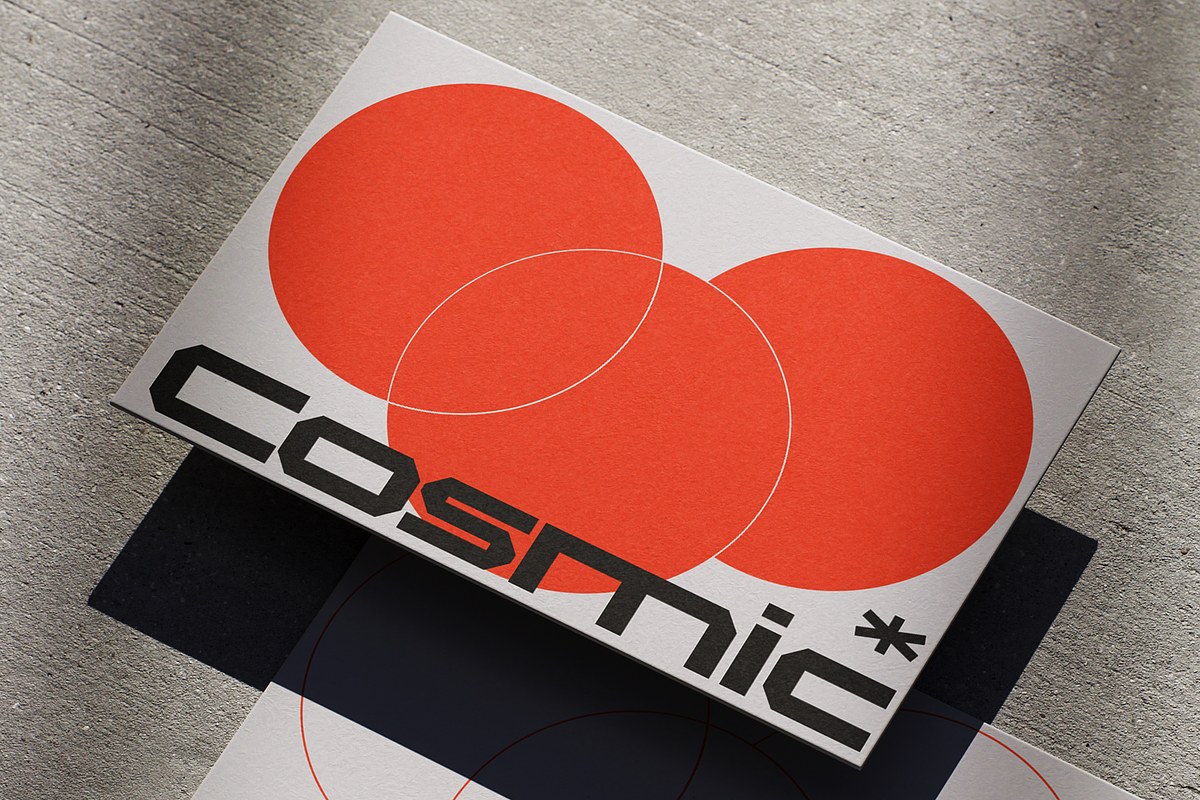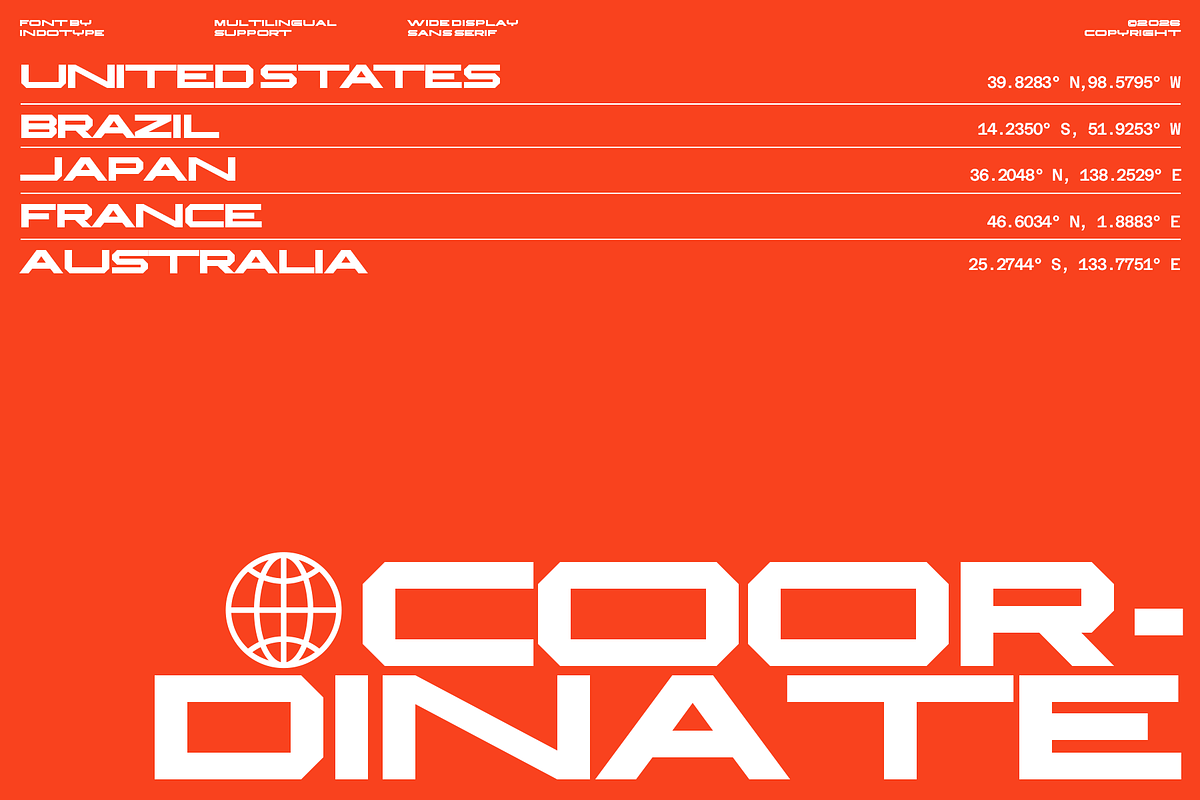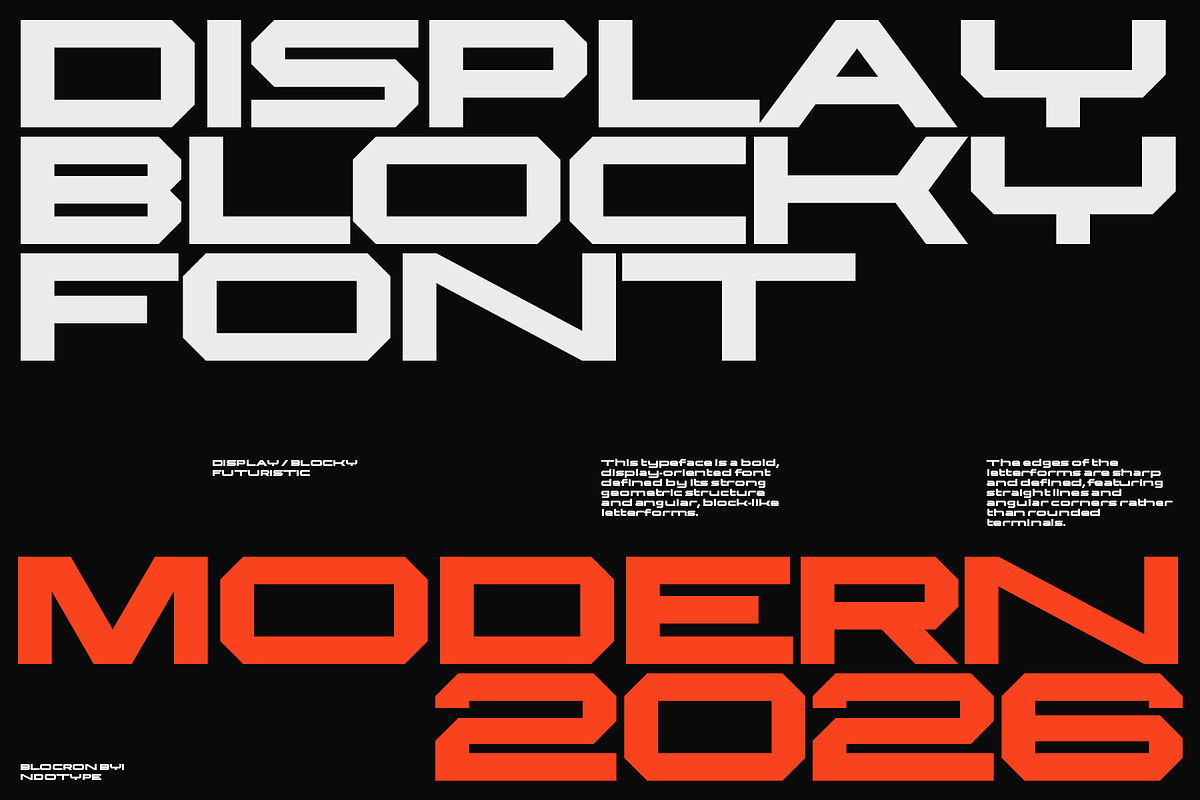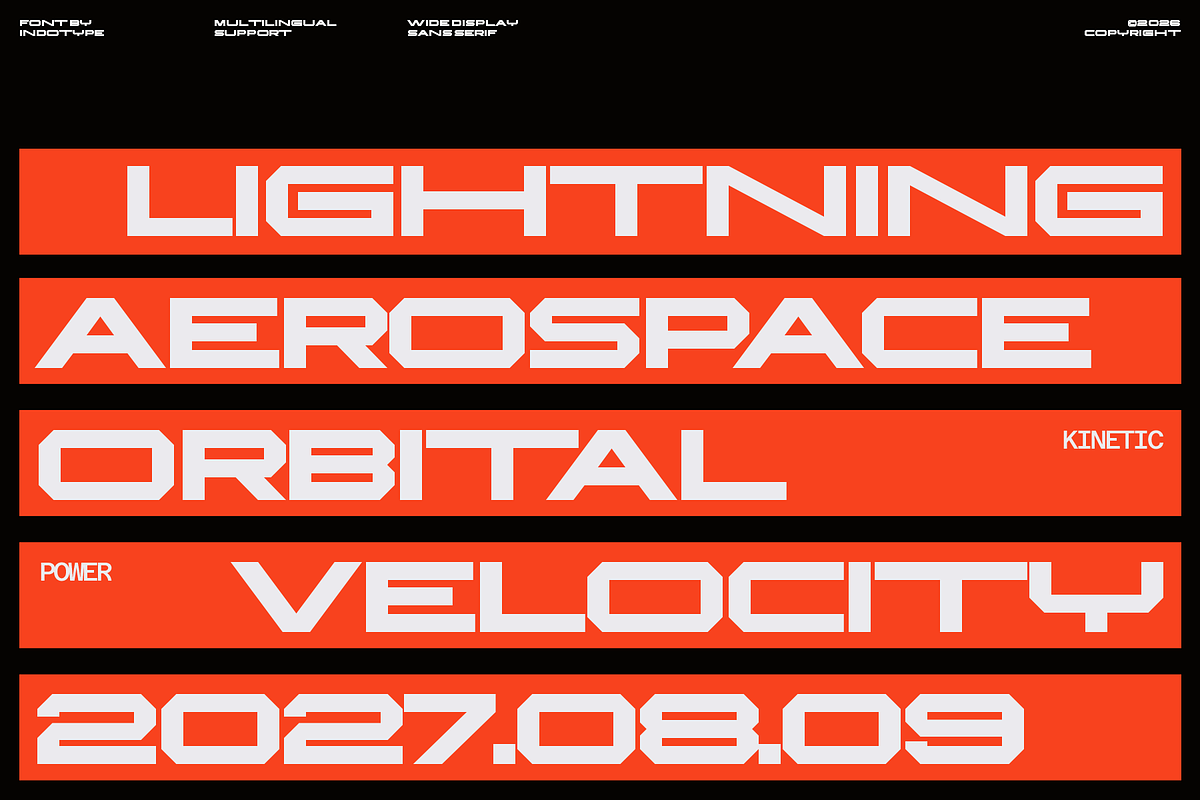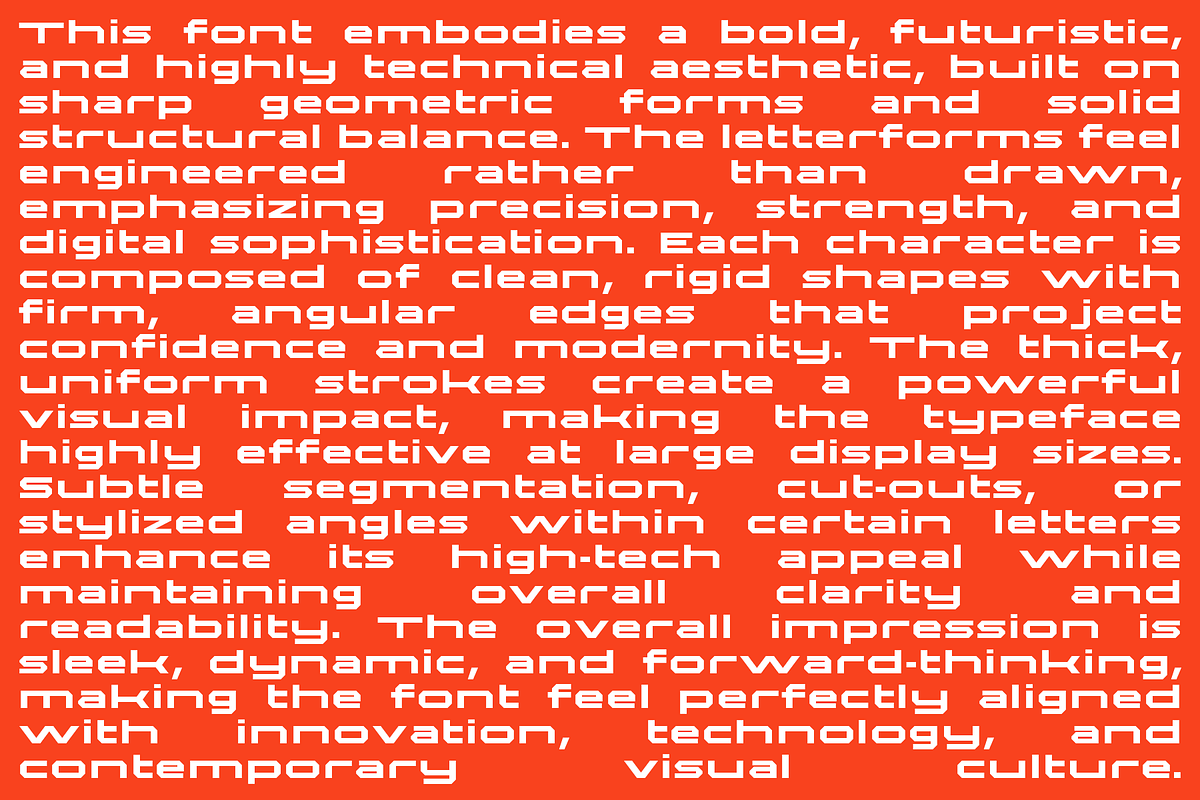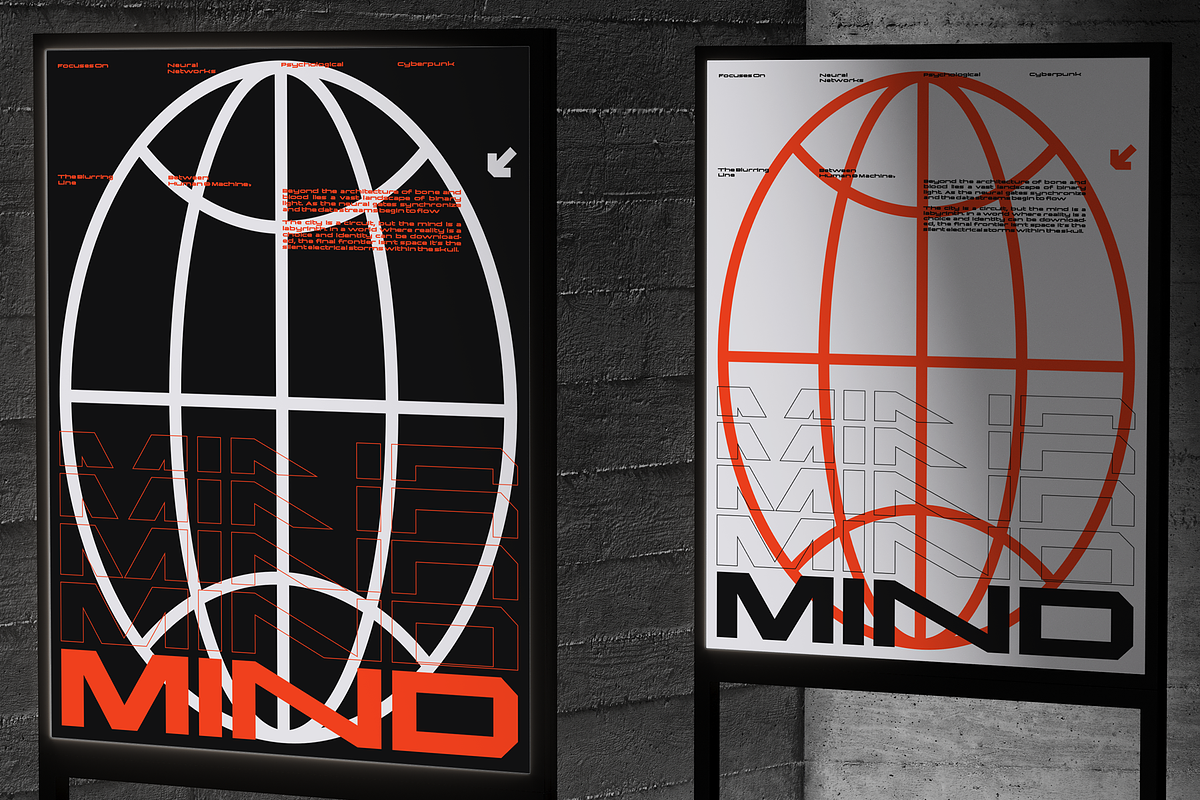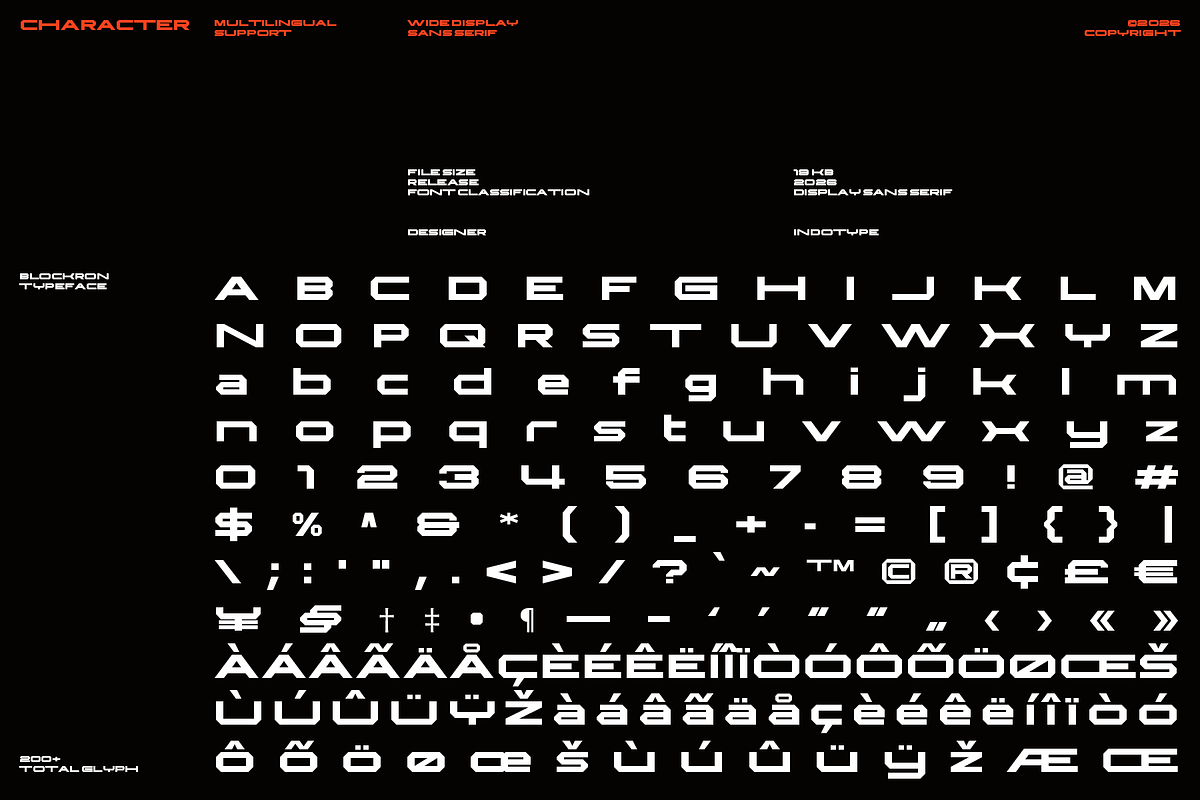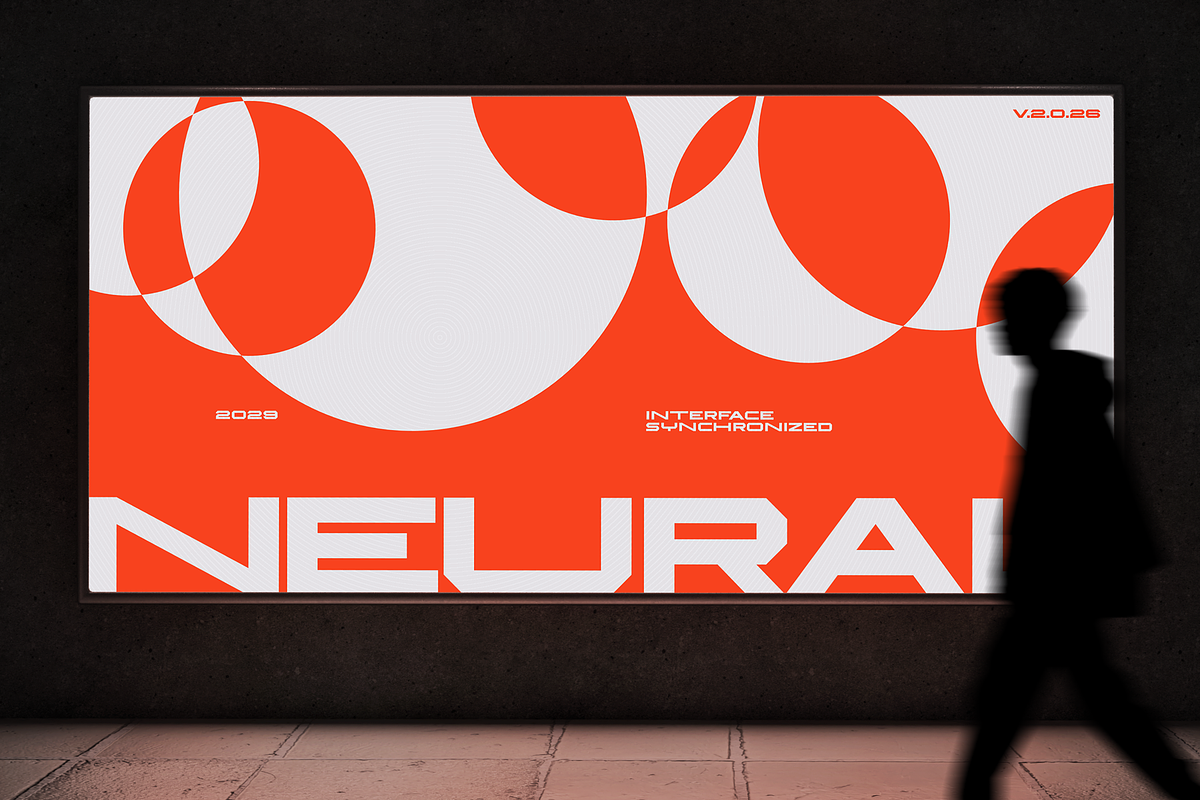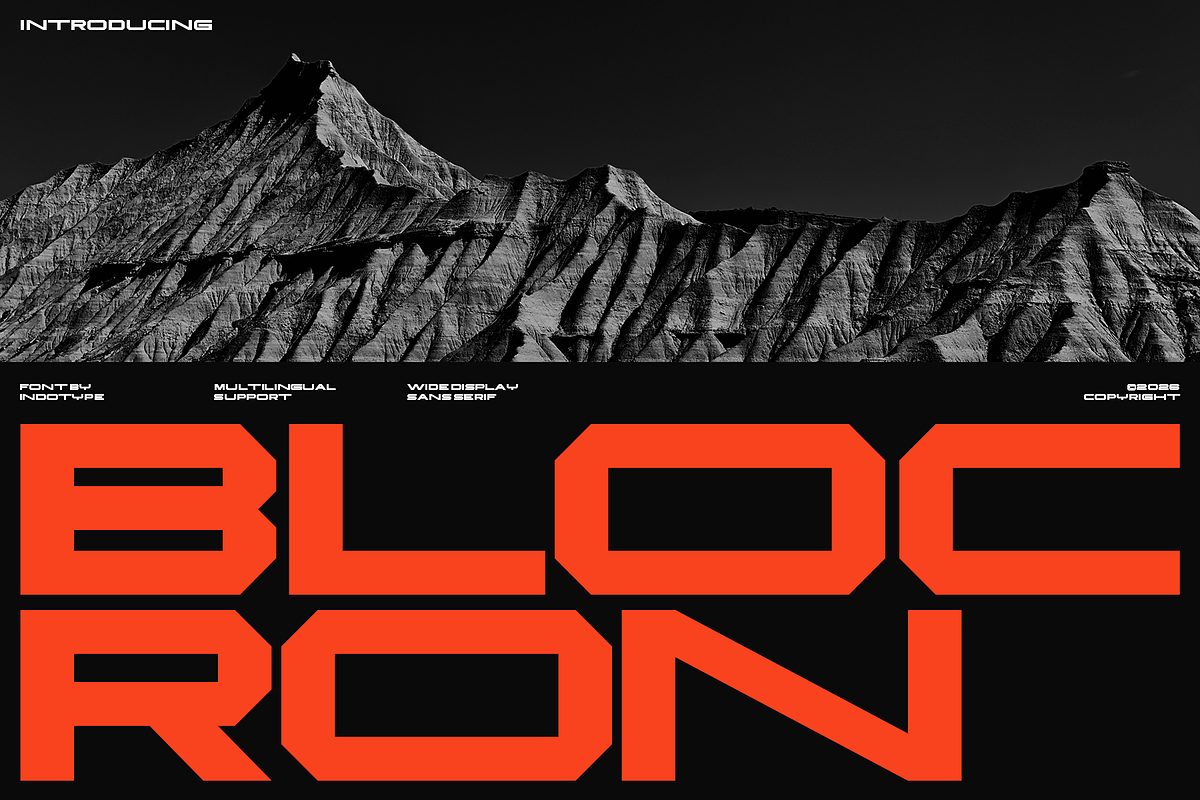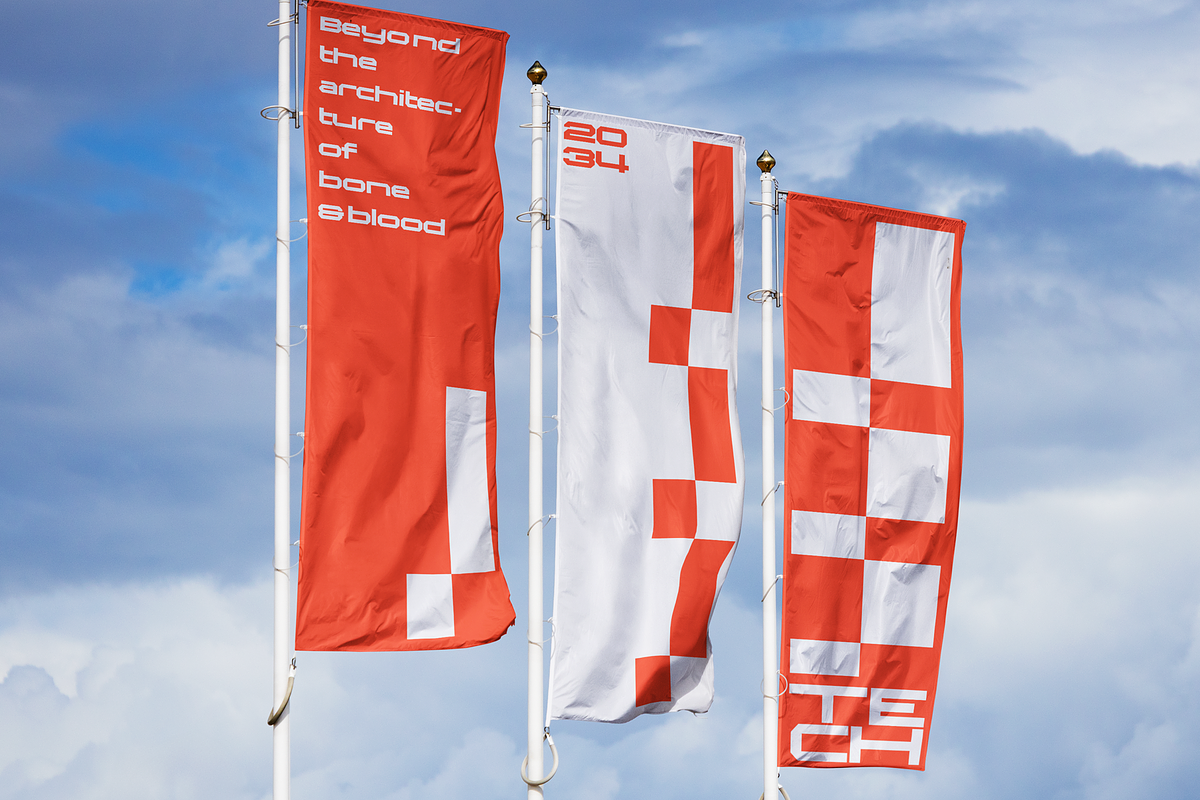
Blocron - Wide Display Sans Serif
Blocron is an ultra-bold, wide display sans-serif typeface built for maximum presence and modern impact. Characterized by its expansive letterforms, low stroke contrast, and geometric solidity, Blocron commands attention and fills space with confident authority. Its wide stance and substantial weight create a powerful, grounded aesthetic that feels both contemporary and monolithic. This font is engineered for headlines that need to dominate, logos that demand recognition, and branding that requires a strong, unforgettable footprint. Perfect for bold editorial layouts, tech and automotive branding, poster design, and any application where typography must be a primary visual force. Blocron is not just wide—it’s an immovable statement in modern design.
- Ideal for: Dominant Headlines, Tech & Automotive Logos, Poster Design, Editorial Spreads, Branding for Strength, Packaging with Impact.
- Classification: Sans-Serif, Display, Wide, Geometric.
- Attributes: Bold, Wide, Powerful, Modern, Solid, Authoritative, Monolithic.